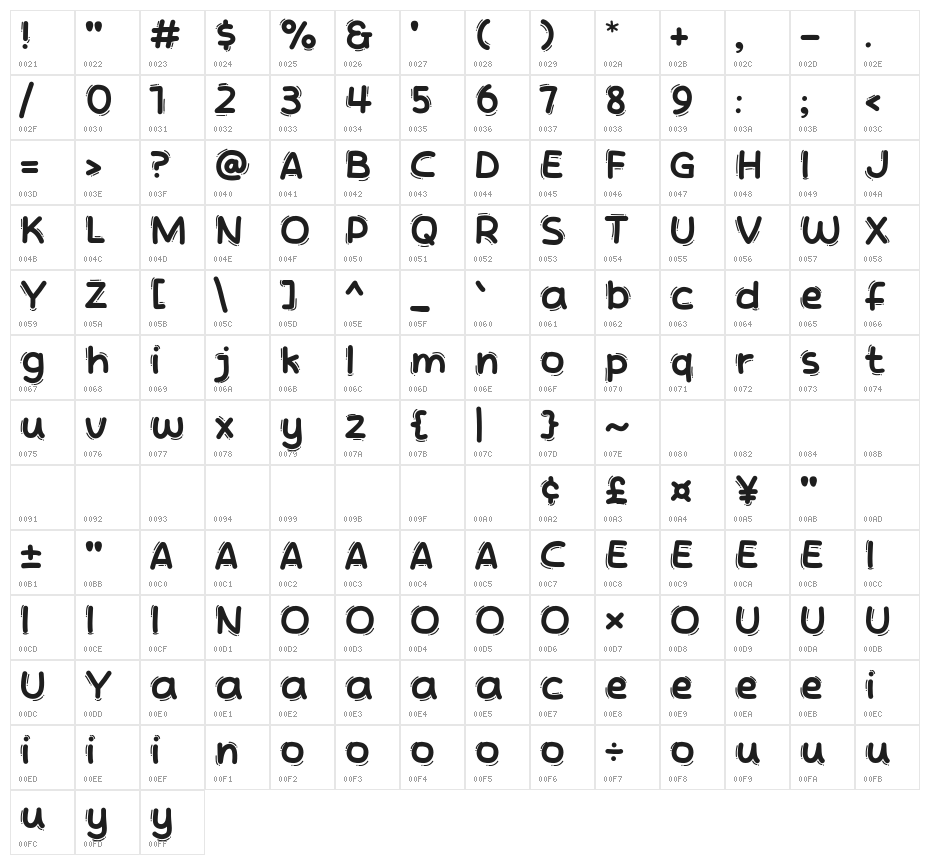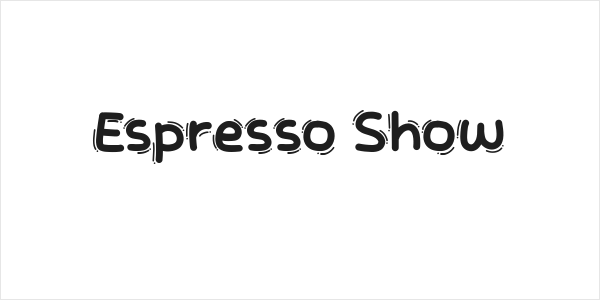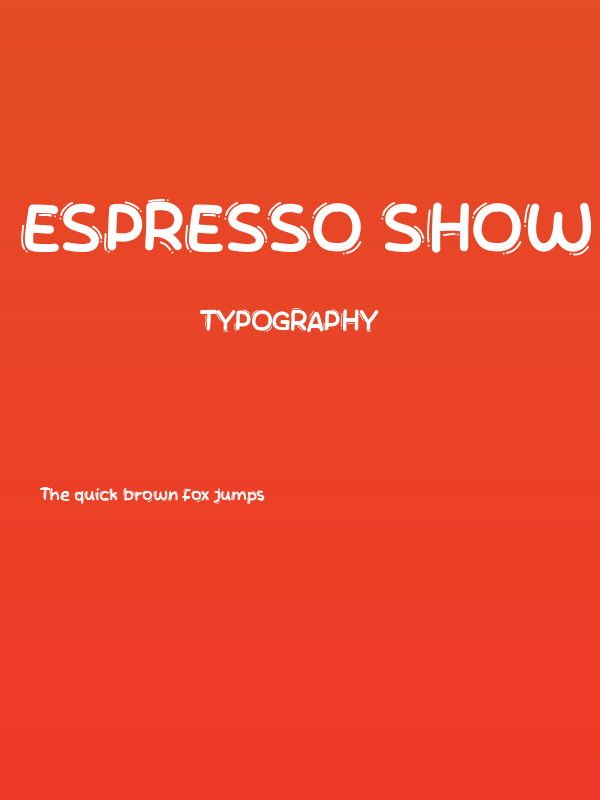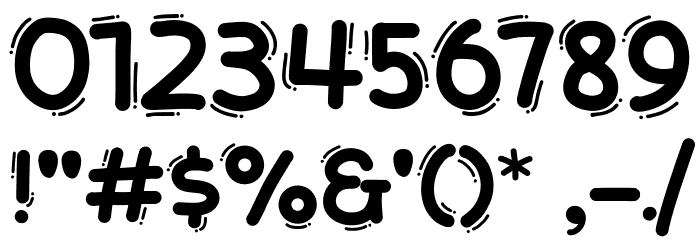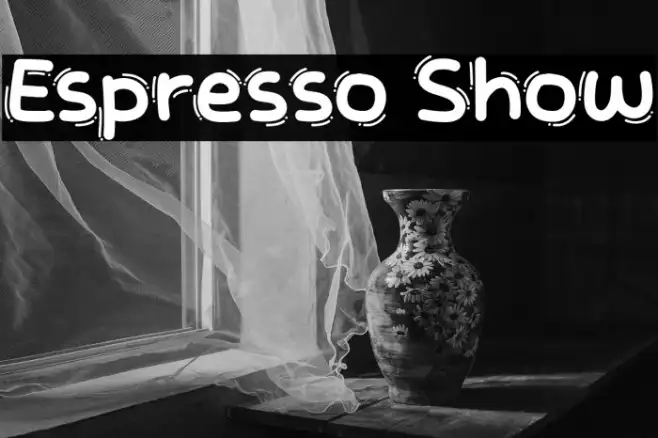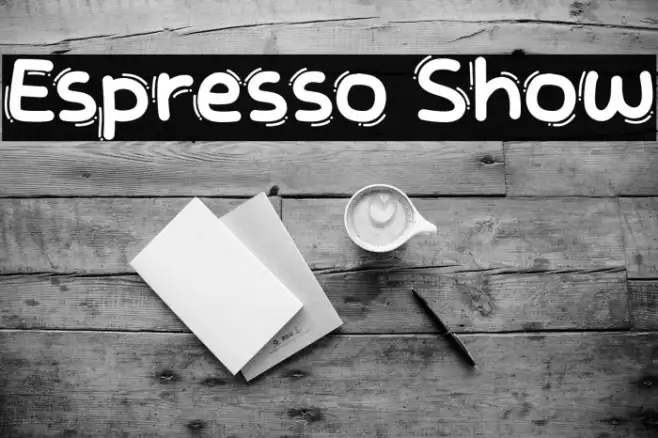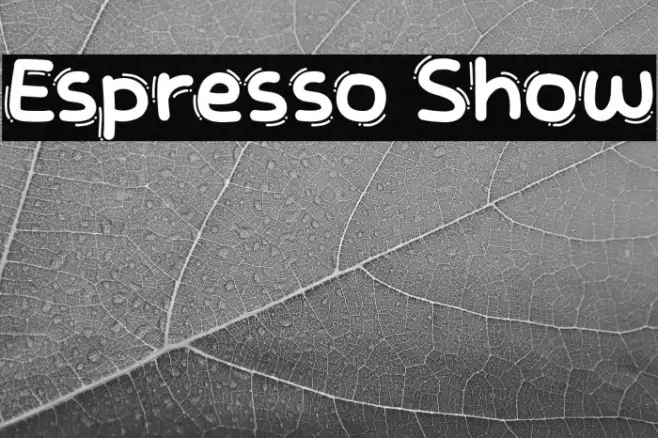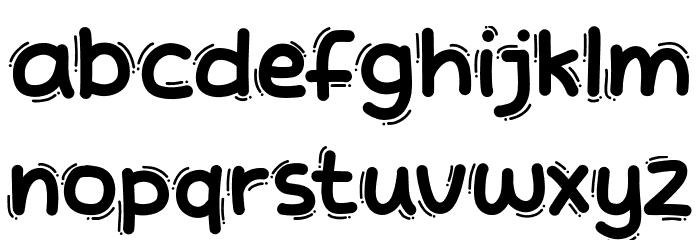
Espresso Show Font
Espresso Show Description
This playful and dynamic font features a bold, rounded style with a unique distressed texture that gives it a hand-drawn appearance. The letters are slightly irregular, adding to its casual and informal charm. The uppercase and lowercase characters maintain consistent weight, while the numbers and special characters follow the same stylistic approach. The font's design is engaging and eye-catching, making it suitable for projects that require a fun and approachable aesthetic. Its distinct look is perfect for creative and artistic applications.
| Overall Style | Playful, Casual, Artistic |
| Proposed Projects | Ideal for children's books, playful branding, casual invitations, and creative posters. |